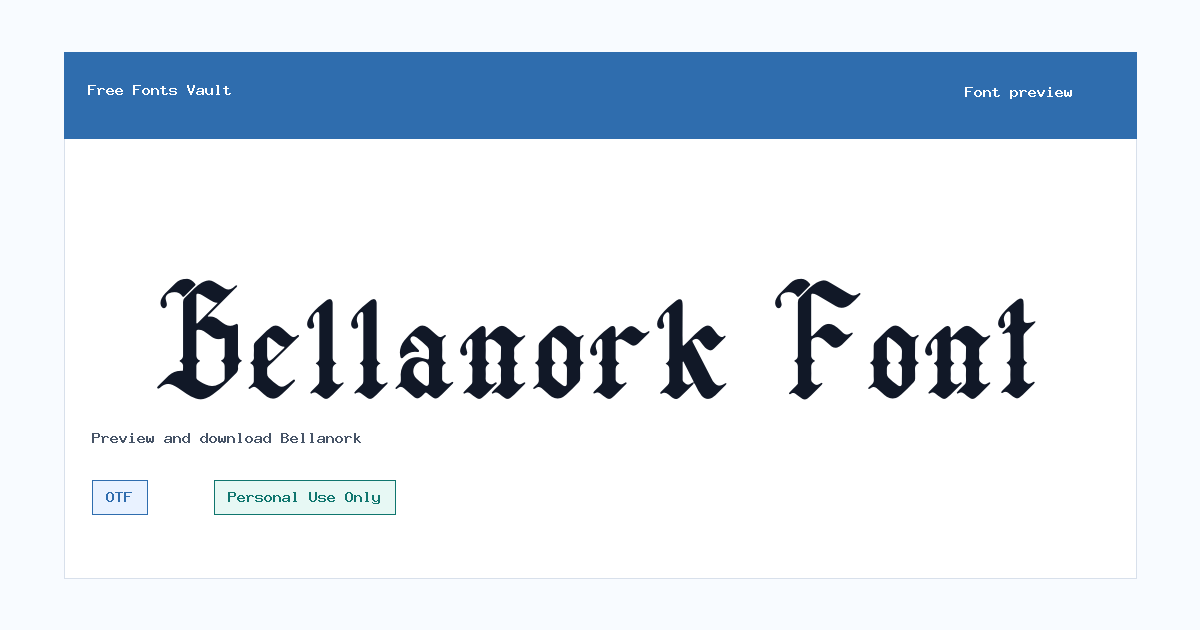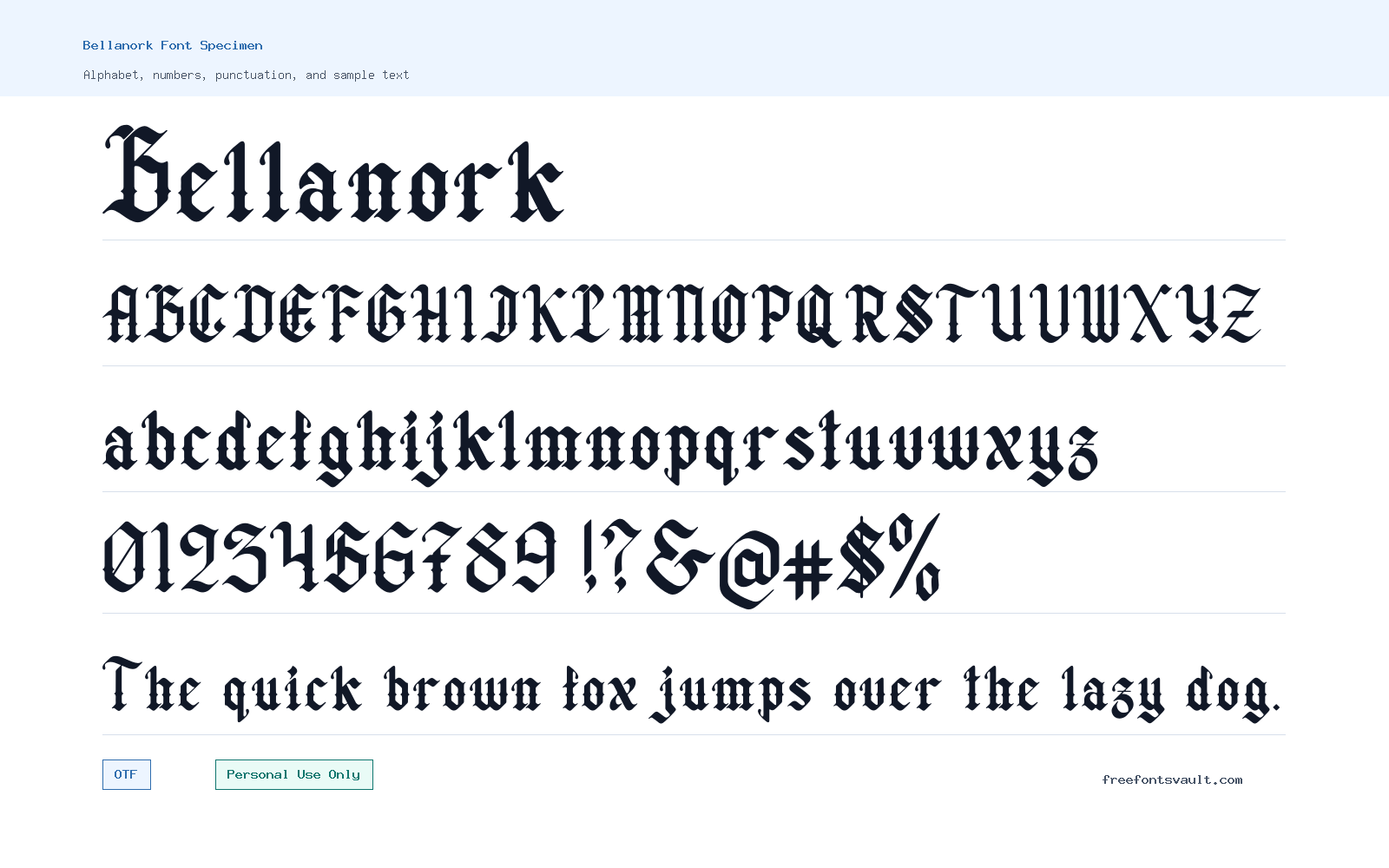
Bellanork
Bellanork is a blackletter-style display font with a dark, decorative look suited to short text, bold headings, and themed design work. It is supplied as an OTF demo font and should be used with the Personal Use Only license in mind.
Bellanork works best when you want lettering with an old-style, gothic edge rather than a neutral everyday typeface. Its blackletter direction makes it more useful for display settings than for body copy. Try it in the preview box with names, short titles, initials, event wording, or one-line phrases to see how the shapes connect and how much spacing the text needs.
Because this is a decorative font, readability depends heavily on size and wording. Keep it large, avoid long paragraphs, and test both uppercase and lowercase before downloading. It can fit poster titles, apparel mockups, album-style graphics, tattoo-inspired layouts, gaming headers, dark fantasy designs, and branding drafts where the text is short. For clearer layouts, pair it with a plain serif or sans serif for descriptions, dates, menus, or any small supporting text.
- Blackletter-inspired display style for dramatic short text and headings
- Posters, logos drafts, apparel mockups, and title graphics that need a gothic display feel
- Short names, initials, event titles, badges, labels, and social media artwork
What kind of font is Bellanork?
Bellanork is presented as a blackletter display font. It is better for short, prominent text than for paragraphs or small interface labels.